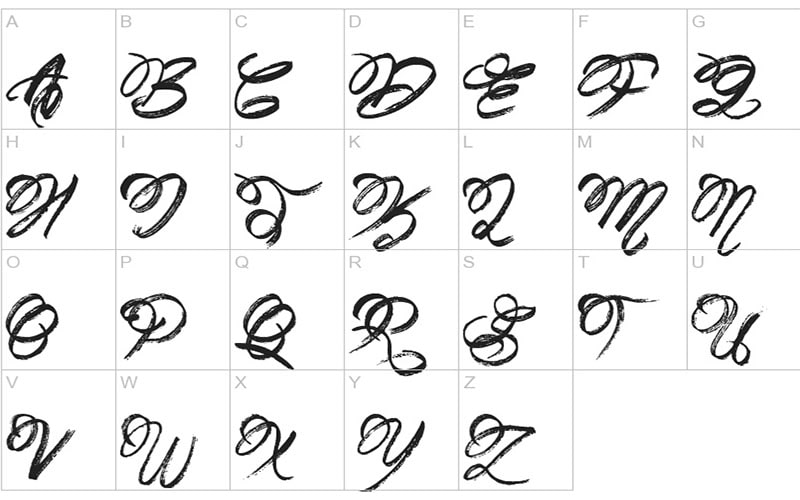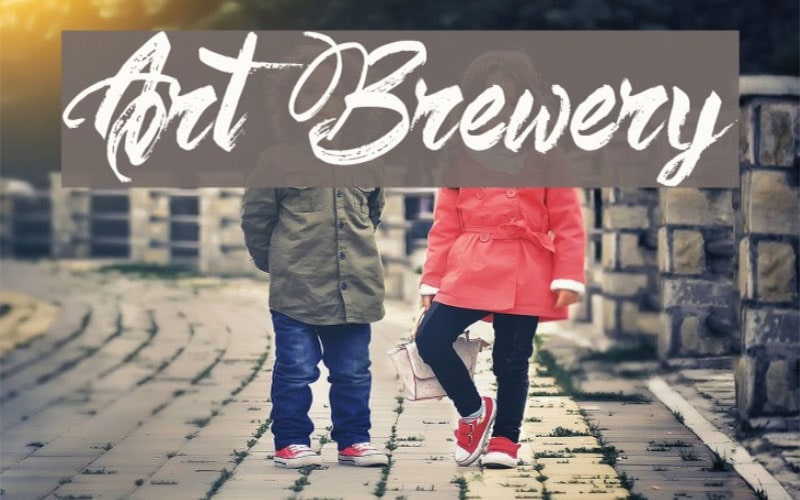
Art Brewery Font is an exquisite typeface that beautifully captures the essence of craftsmanship and artistic flair. Its design is inspired by traditional brewing and artisanal aesthetics.
That makes it a go-to choice for brands and projects that want to convey a sense of quality and creativity. A talented designer crafted it JSH creates whose passion for typography and vintage aesthetics shines through in this creation.
The font is often associated with a love for artisanal craftsmanship, drawing inspiration from traditional signage and label designs in craft breweries.
It primarily consists of a single style that embodies the essence of hand-crafted typography. The font features decorative letterforms with unique flourishes that add personality and charm to any design.
| Style: | Brush, Script, Typeface |
The typeface is characterized by its vintage-inspired aesthetics, combining modern design principles with a nostalgic feel. It is notable for its decorative style, particularly well-suited for projects that demand attention and character.
A decorative script font with flowing letterforms that evoke a sense of nostalgia. Perfect for craft breweries and artisanal beverage labels, the font conveys a sense of authenticity and quality.